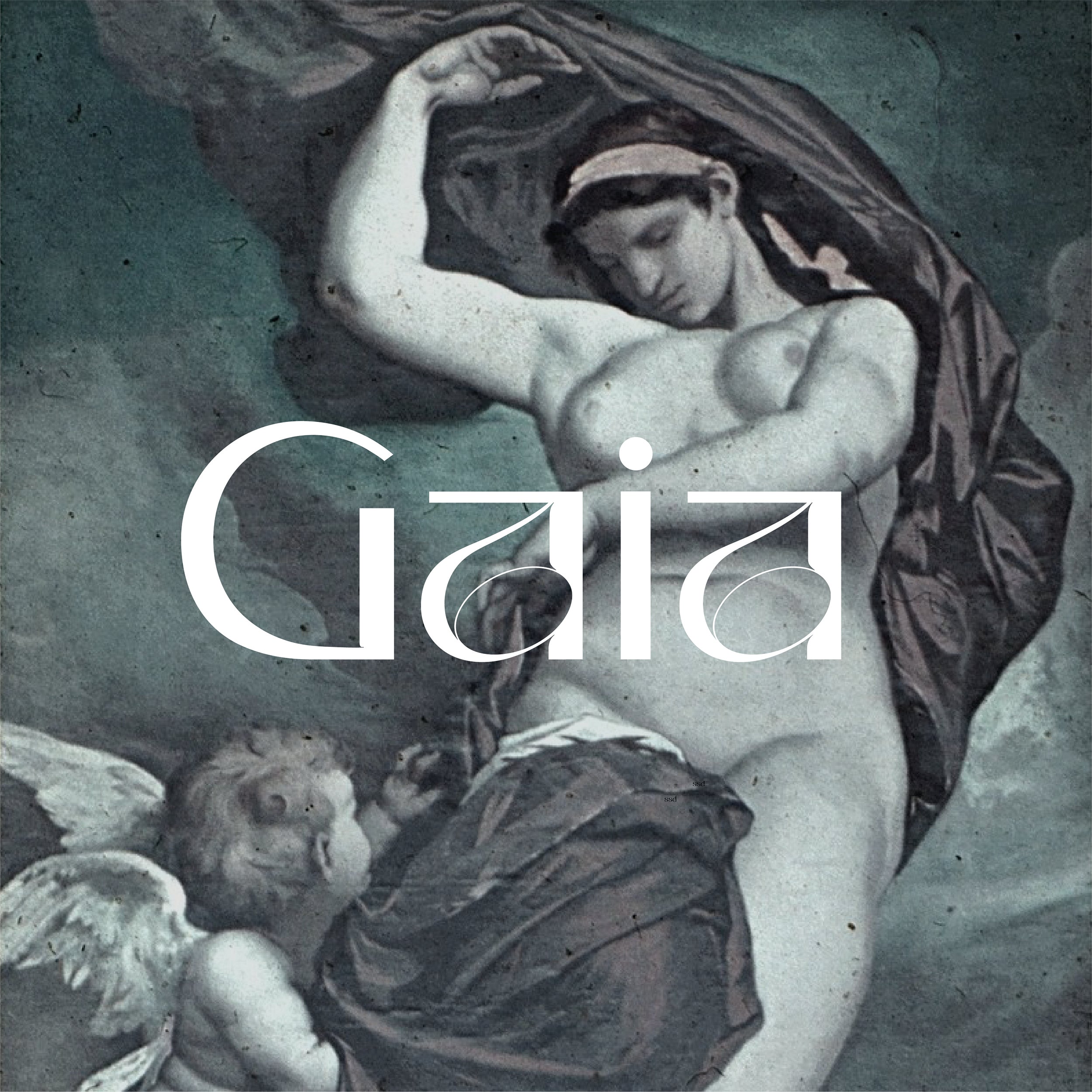
Gaia Display Font
The reason Gaia Display Font is genuinely exciting is its sophisticated duality: it pairs a strong, modern geometric structure with dynamic, unconventional curves, creating a sense of visual motion and high style. Named after the Greek Earth goddess, this font successfully balances powerful presence with refined, often delicate lines. Its strong individuality and high contrast ensure that headlines are immediately captivating and memorable, providing an elegant and high-impact solution for contemporary visual communication.
The Gaia Display Font family is typically streamlined for display use, focusing on one primary style (Regular) that is designed for maximum visual effect. However, the commercial version often includes a range of specialized OpenType features, alternative glyphs (especially the distinctive 'a' which defines its character), and multilingual support. For a beautiful, strong, and highly stylistic sans serif font, secure your Gaia Display Font Free Download today.